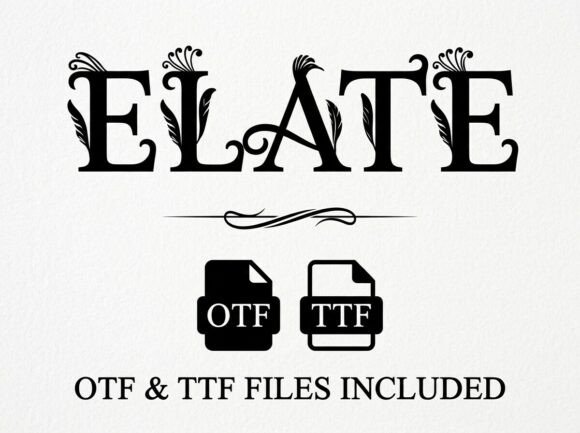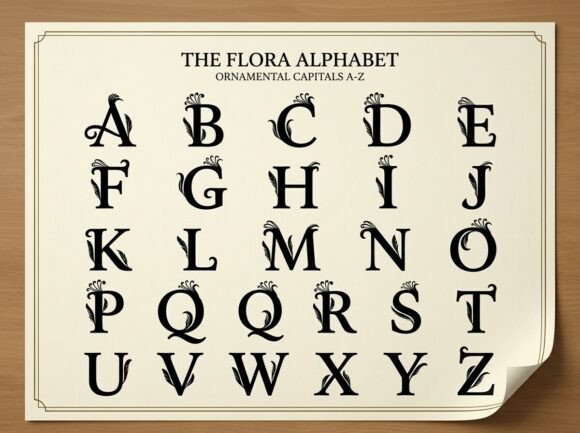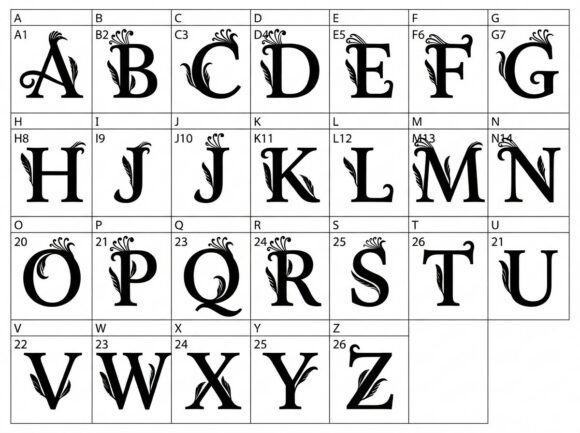
Introducing Elate Font: The Epitome of Luxury and Elegance
In the realm of typography, few fonts have managed to capture the essence of luxury and sophistication as effectively as Elate Font. This premium display font is a masterful blend of classical serif elegance and exquisite plume motifs, making it an exceptional choice for designers and crafters seeking to add a touch of majesty to their projects.
The Design Philosophy Behind Elate
Elate Font boasts high-contrast letterforms, where each character is artfully adorned with dramatic, sweeping feathers and delicate, budding flourishes. This design approach creates a harmonious balance between the stately structural stems and the soft, organic plumes, resulting in a visual narrative of luxury and artisanal grace. The font’s creator has skillfully merged traditional serif elements with ornate, feather-like motifs, giving Elate a unique and captivating aesthetic.
Applications for Elate Font
Given its majestic and elegant design, Elate Font is perfectly suited for a variety of high-end applications, including:
- High-end boutique branding: Elevate your luxury brand with a font that exudes sophistication and refinement.
- Bespoke wedding stationery: Add a touch of elegance and romance to your wedding designs with Elate’s beautiful, feather-adorned letterforms.
- Luxury spirit labels: Give your premium spirit labels a sense of prestige and exclusivity with Elate’s majestic typography.
- Sophisticated editorial headers: Use Elate to create eye-catching headlines that command attention and convey a sense of luxury.
Why Choose Elate Font?
Elate Font offers a range of benefits for designers and crafters, including:
- Timeless elegance: Elate’s classic serif design ensures that your projects will remain stylish and relevant for years to come.
- Versatility: The font’s high-contrast letterforms and plume motifs make it suitable for a wide range of applications, from luxury branding to editorial design.
- Attention-grabbing: Elate’s dramatic, sweeping feathers and delicate flourishes are sure to capture the attention of your audience and leave a lasting impression.
Designing with Elate Font
When working with Elate Font, designers can experiment with various techniques to maximize its impact. Here are a few tips:
- Pair with contrasting fonts: Combine Elate with a simpler, sans-serif font to create visual interest and hierarchy in your designs.
- Play with color: Elate’s elegant design lends itself well to a range of colors, from metallic gold and silver to rich jewel tones.
- Experiment with textures: Add depth and tactility to your designs by incorporating textures that complement Elate’s luxurious aesthetic.
Elate Font is a truly exceptional typeface that offers designers and crafters a unique opportunity to add a touch of luxury and sophistication to their projects. With its masterful blend of classical serif elegance and exquisite plume motifs, Elate is sure to command royal attention and leave a lasting impression on your audience. Whether you’re designing for a premium fashion house or a historic estate, Elate Font delivers a sense of majestic prestige and timeless, feathered beauty to every word.